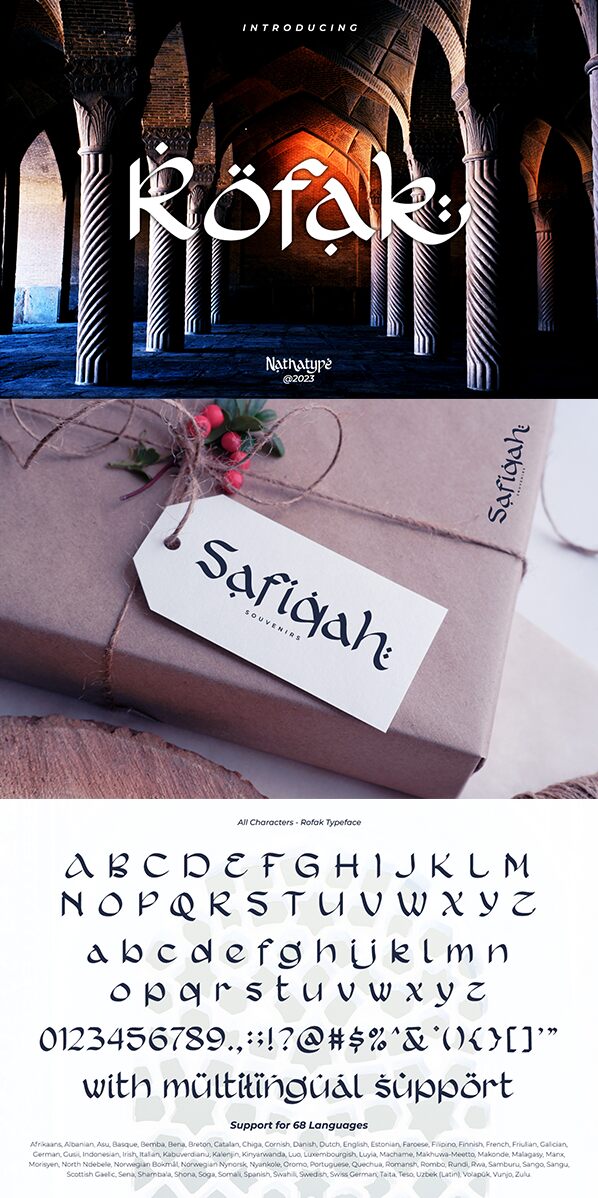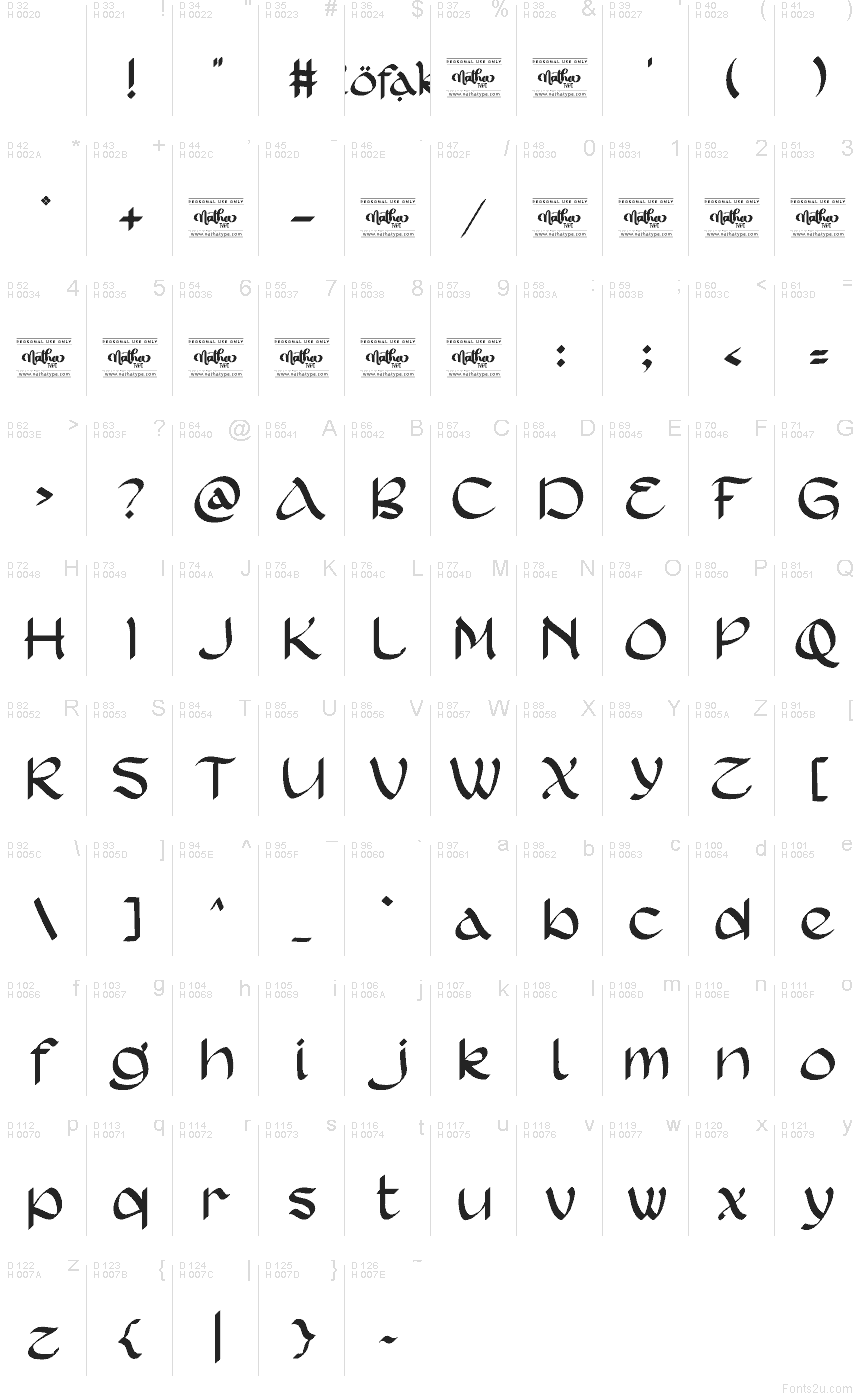
Rofak font by Nathatype is a free foreign faux-arabic typeface that wraps Latin letters in flowing, calligraphic curves. Its strokes feel inky and hand-drawn, with swooping entries and tapered endings that echo Middle Eastern lettering without trying to imitate it directly. The result is a bold, decorative look that instantly signals sand, spice, and storybook adventure while still reading clearly at a glance.
Using Rofak, you can give menus, hookah bar branding, festival posters, game titles, book covers, and themed event invitations a cinematic “Arabian nights” atmosphere with just a word or two. This free font works best as a headline or logo star, supported by a clean sans serif for body text. Try setting Rofak large with generous letterspacing to let those sculpted curves breathe and really show off their character.